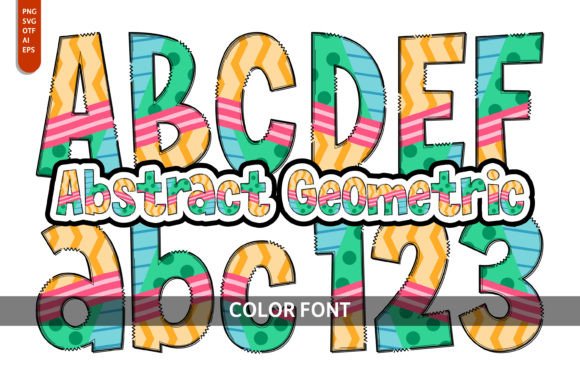
The Magic of Abstract Geometric Fonts: A Designer’s Delight
I’ll never forget the time I was working on a children’s book project, and my client asked for a font that would make the story come alive. I scoured the internet, tried out countless fonts, but nothing seemed quite right. That was until I stumbled upon an Abstract Geometric Font that added a playful, whimsical touch to the text. It was like magic! ✨ The font was easy to read, colorful, and engaging – perfect for a young audience. In this article, I’ll share my love for this font, its features, and provide a comprehensive guide on how to use it.
- ✨ Whimsical and playful design that’s perfect for children’s books, posters, invitations, and greeting cards
- ✅ Easy to read, even for young audiences
- 🎨 Colorful and engaging, adding a pop of fun to any design
While I adore this font, there are a few things to keep in mind: 🤔
The Designer Inspiration Behind Abstract Geometric Fonts
The Abstract Geometric Font was inspired by the world of children’s books and playful design. The designer wanted to create a font that would bring joy and whimsy to any design project. With its colorful and geometric shapes, this font is sure to delight young audiences and add a touch of magic to any design.
| Font Name | Abstract Geometric Font |
| Author | Imagination Switch |
Q: What is an Abstract Geometric Font?
A: An Abstract Geometric Font is a type of font that features geometric shapes and lines in a playful, whimsical way. It’s perfect for designs that require a fun and artistic feel.